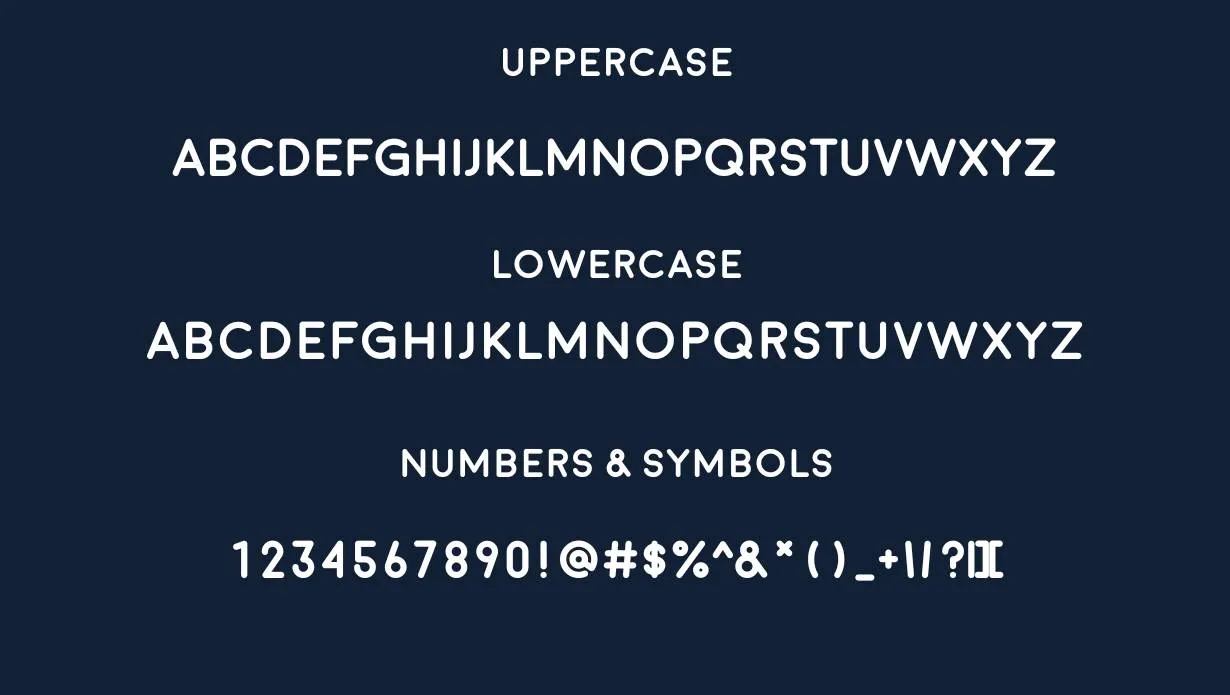
Moon font is like a gentle and elegant friend for your words. The letters have a graceful design, creating a sense of beauty and serenity. It’s perfect for projects that need a refined and artistic look, like wedding invitations, poetry books, or anything that demands a touch of grace.
Using Moon font is like adding a touch of magic to your words. It’s like making your text feel like it’s part of a dreamy and enchanting story. Whether you’re writing a note to a loved one or creating materials for a special occasion, Moon font enhances the overall elegance of your words.
| Name | Moon Font |
| Designer | Jack Harvatt |